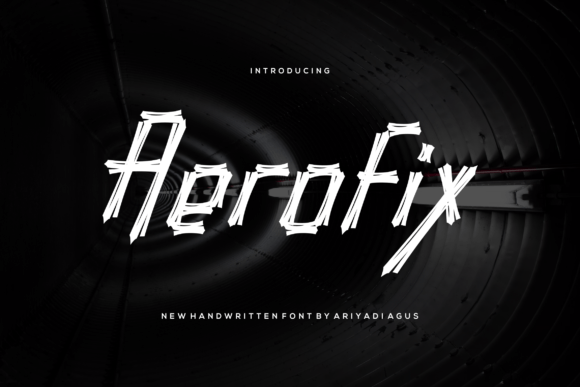
The Aerofix Font: Elevate Your Designs with a Cool and Unique Display Font
I still remember the frustration of working on a project, hours spent searching for the perfect font, only to end up with something that just didn’t quite fit. As designers, crafters, and creative hobbyists, we’ve all been there. But what if I told you about a font that can instantly elevate your creative projects and make them stand out? Enter the Aerofix font, a cool and unique display font that’s about to become your new go-to.
An Honest Review of Aerofix
So, what makes Aerofix so special? Let’s dive into the good stuff and, of course, a few quirks to keep in mind.
What I Love About Aerofix
- ✨ Unique and Eye-Catching Design: Aerofix boasts a distinctive style that’s sure to grab attention. Its sleek lines and modern aesthetic make it perfect for headings, titles, and anywhere you want to make a statement.
- ✅ Versatility: Whether you’re working on a digital project, a print design, or even a craft, Aerofix adapts beautifully, making it a fantastic addition to your font library.
- 💡 OpenType Features: Aerofix comes with a range of OpenType features, including stylistic alternates and glyphs, which allow for a high degree of customization. This means you can really make the font your own and tailor it to fit your project’s needs.
While Aerofix is an amazing font, there are a few things to keep in mind:
- 🤔 Legibility at Small Sizes: Like many display fonts, Aerofix shines at larger sizes but may lose some legibility when used at smaller sizes. It’s best used for headlines and titles rather than body text.
- ⚠️ Limited Use in Extensive Text: Due to its design, Aerofix might not be the best choice for extensive text or paragraphs. It’s perfect for short, impactful messages but might not hold up for longer content.
The Story Behind Aerofix
While the exact origins of Aerofix might not be well-documented, it’s easy to imagine a designer inspired by the sleek lines of modern aviation and the futuristic feel of space exploration. The result is a font that’s both cutting-edge and approachable, perfect for designers looking to add a bit of flair to their work.
Q: What type of projects is Aerofix best suited for?
Aerofix shines in projects that require a modern, eye-catching display font. It’s perfect for headings, titles, posters, and any design where you want to make a statement.
Q: Does Aerofix support OpenType features?
Yes, Aerofix comes with OpenType features, including stylistic alternates and glyphs. These features allow you to customize the font further and adapt it to your design needs.
Q: Is Aerofix suitable for body text?
While Aerofix is stunning as a display font, it may not be the best choice for extensive body text due to its design and potential legibility issues at smaller sizes.